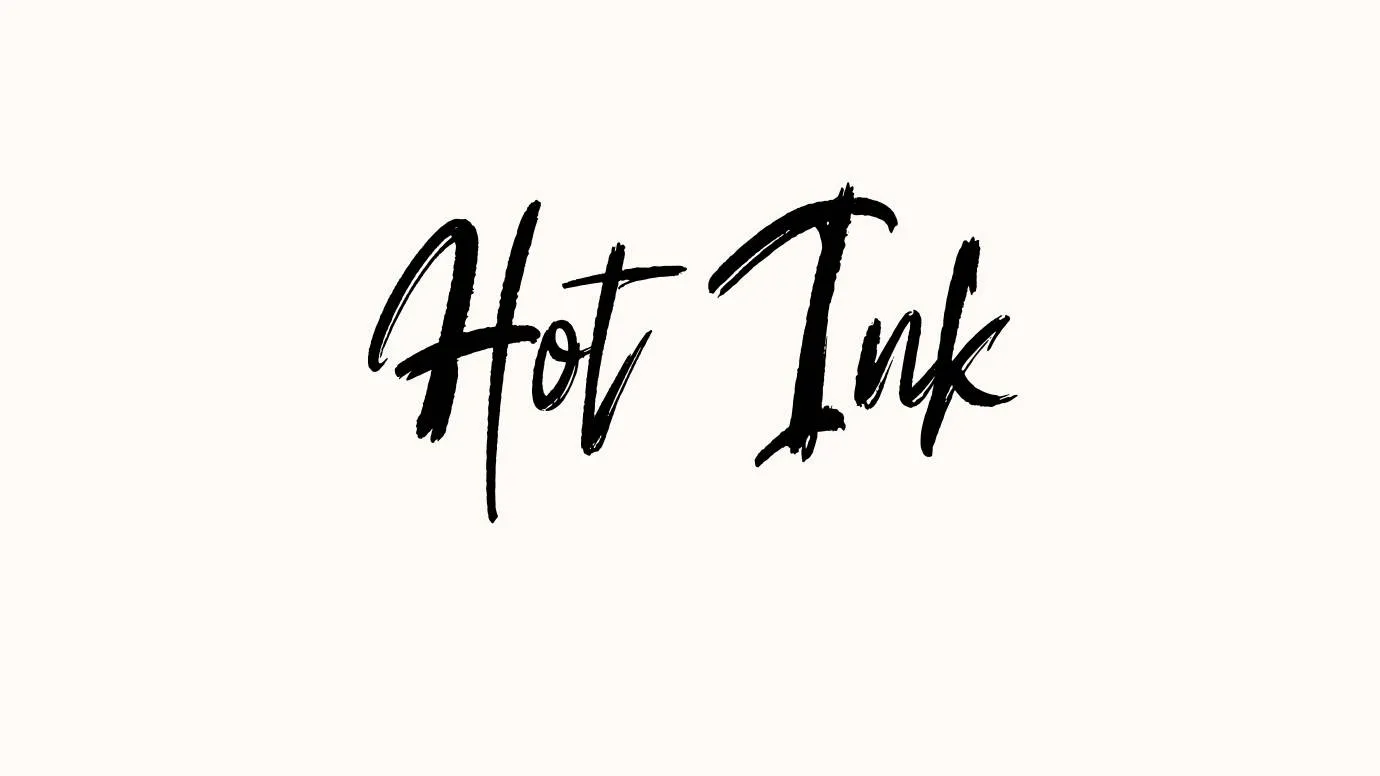
Hot Ink Font Family is a classic and fantastic typeface that gained popularity in the font design industry very quickly. This awesome typeface falls in the classification of the brush family of fonts. Yur Lis is the designer behind its creation published by Stripes Studio.
This fantastic typography has two classic styles and both have their own appearance. Its brushy look characters are very attractive. Sauce Font is an alternative to this fantastic typeface.
Hot Ink Font
NameHot Ink Font
TypeBrush
DesignerYur Lis
FoundryStripes Studio